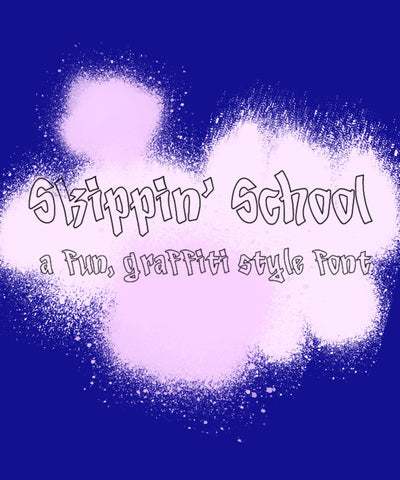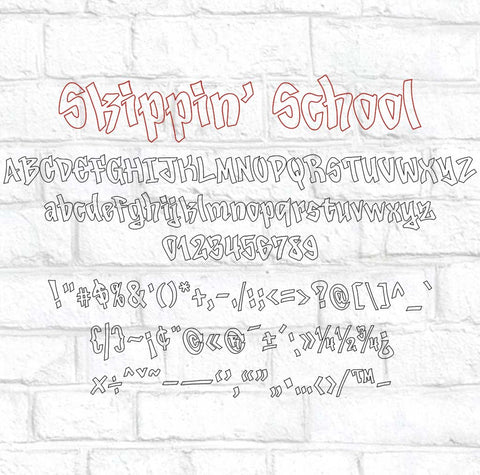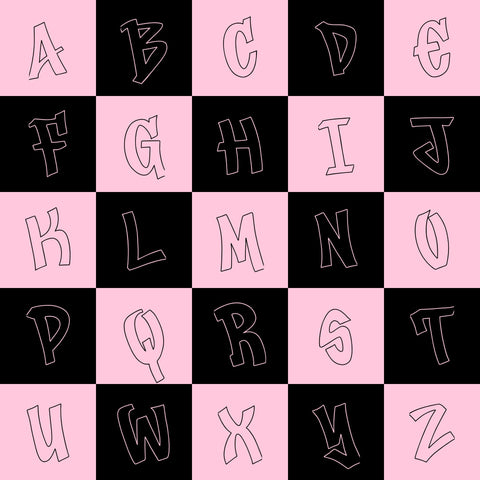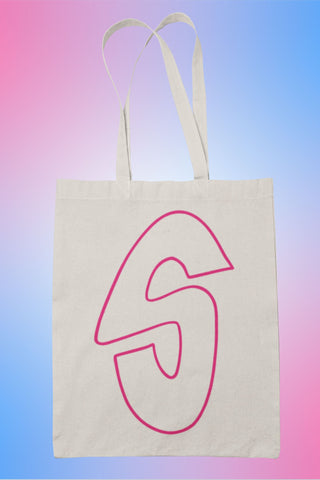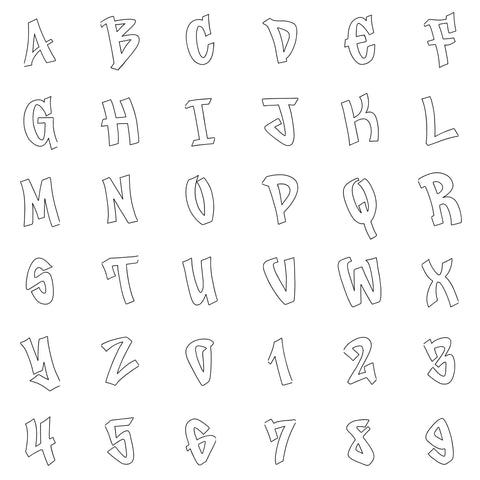
Skippin' School Hand Lettered Graffiti Font | Casual Font | Outline Font | Headline Font
"Skippin School" Hand Lettered Graffiti Font
Skippin' School is an outline graffiti inspired font. Perfect for monograms,headlines, content, signage, invitations and just about anything you can think of.